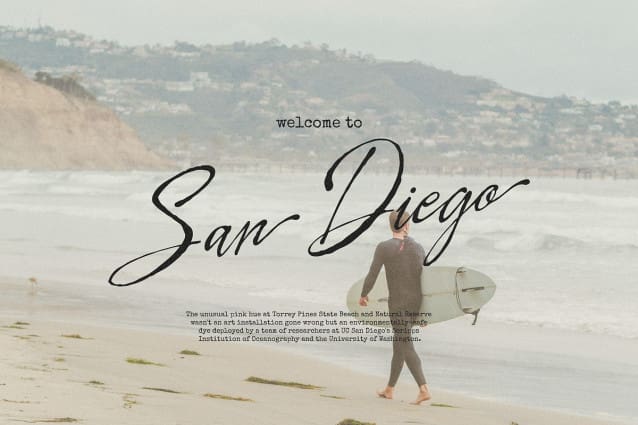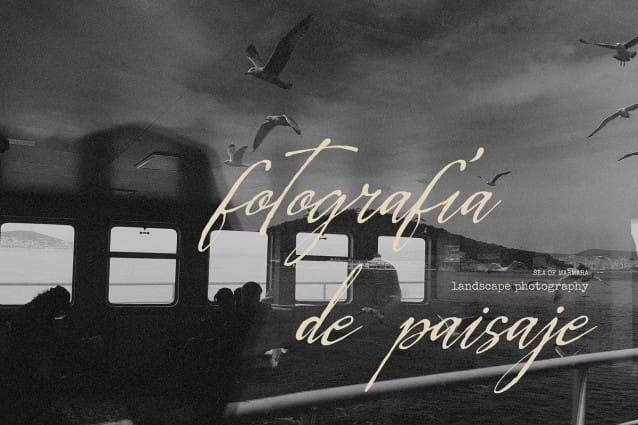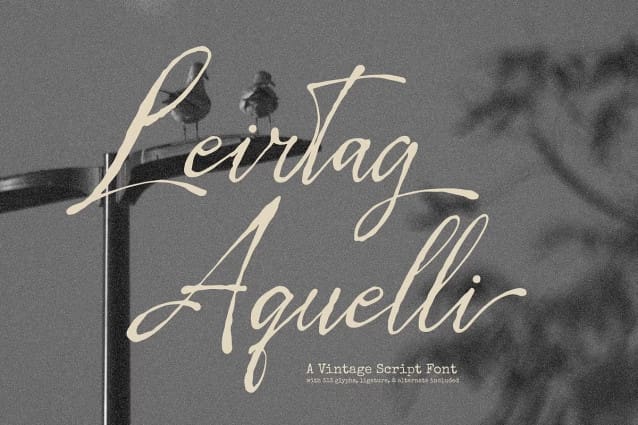
Leirtag Aquelli Font
Leirtag Aquelli Font | Vintage Script, from Denustudios, suitable for any projects such as: logos, branding projects, homeware designs, product packaging, mugs, quotes, posters, shopping bags, t-shirts, book covers, name card, invitation cards, greeting cards, label, photography, watermark, special events, and all your other lovely projects that need a Vintage Script taste.